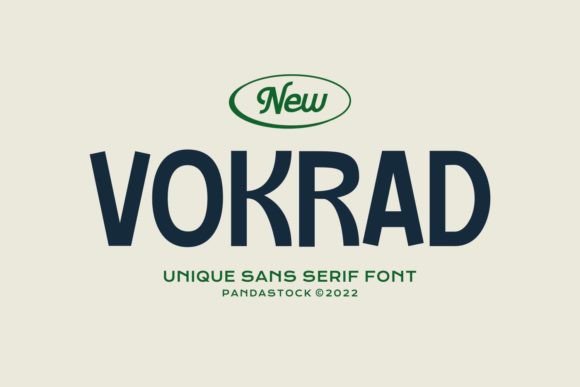
Vokrad Font: The Modern and Cool Sans Serif Font for Your Projects
Are you looking for a font that can add a touch of modernity and coolness to your projects? Look no further than the Vokrad font. This sans serif font is designed to provide a clean and sleek look that will elevate your designs and make them stand out. In this article, we’ll take a closer look at the Vokrad font, its features, and how you can use it confidently in your projects.
What is Vokrad Font?
Vokrad font is a modern sans serif font that is designed to provide a clean and minimalist look. It is perfect for designers who want to create a sleek and contemporary design that will appeal to a wide range of audiences. The font is highly versatile and can be used for a variety of projects, including logos, headings, and body text.
Benefits of Using Vokrad Font
There are several benefits to using the Vokrad font in your projects. Some of the key benefits include:
- Modern and Cool Look: The Vokrad font has a modern and cool look that will elevate your designs and make them stand out.
- Clean and Sleek Design: The font has a clean and sleek design that is perfect for creating a professional and sophisticated look.
- Highly Versatile: The Vokrad font is highly versatile and can be used for a variety of projects, including logos, headings, and body text.
- Easily Readable: The font is easily readable, even at small sizes, making it perfect for body text and other applications where readability is important.
How to Use Vokrad Font in Your Projects
Using the Vokrad font in your projects is easy. Here are a few tips to get you started:
- Use it as a Headline Font: The Vokrad font is perfect for use as a headline font, where its modern and cool look can really make an impact.
- Pair it with Other Fonts: The Vokrad font pairs well with other fonts, making it easy to create a unique and interesting typography combination.
- Use it for Body Text: The Vokrad font is also suitable for use as a body text font, where its clean and sleek design can help to create a professional and sophisticated look.
Characteristics of Vokrad Font
The Vokrad font has several characteristics that make it a great choice for your projects. Some of the key characteristics include:
- Sans Serif Design: The Vokrad font has a sans serif design, which gives it a clean and modern look.
- Clean Lines: The font has clean lines and a simple design, making it easy to read and understand.
- Geometric Shapes: The Vokrad font uses geometric shapes to create a unique and interesting look.
Pairing Vokrad Font with Other Fonts
Pairing the Vokrad font with other fonts can help to create a unique and interesting typography combination. Here are a few tips for pairing the Vokrad font with other fonts:
- Pair it with a Serif Font: Pairing the Vokrad font with a serif font can create a interesting contrast between the clean lines of the sans serif font and the traditional look of the serif font.
- Pair it with a Script Font: Pairing the Vokrad font with a script font can create a unique and interesting combination that adds a touch of elegance and sophistication to your designs.
In conclusion, the Vokrad font is a modern and cool sans serif font that is perfect for adding a touch of sophistication and elegance to your projects. Its clean and sleek design makes it highly versatile and easy to read, making it perfect for a wide range of applications. Whether you’re looking to create a professional and sophisticated look or a modern and trendy design, the Vokrad font is a great choice.